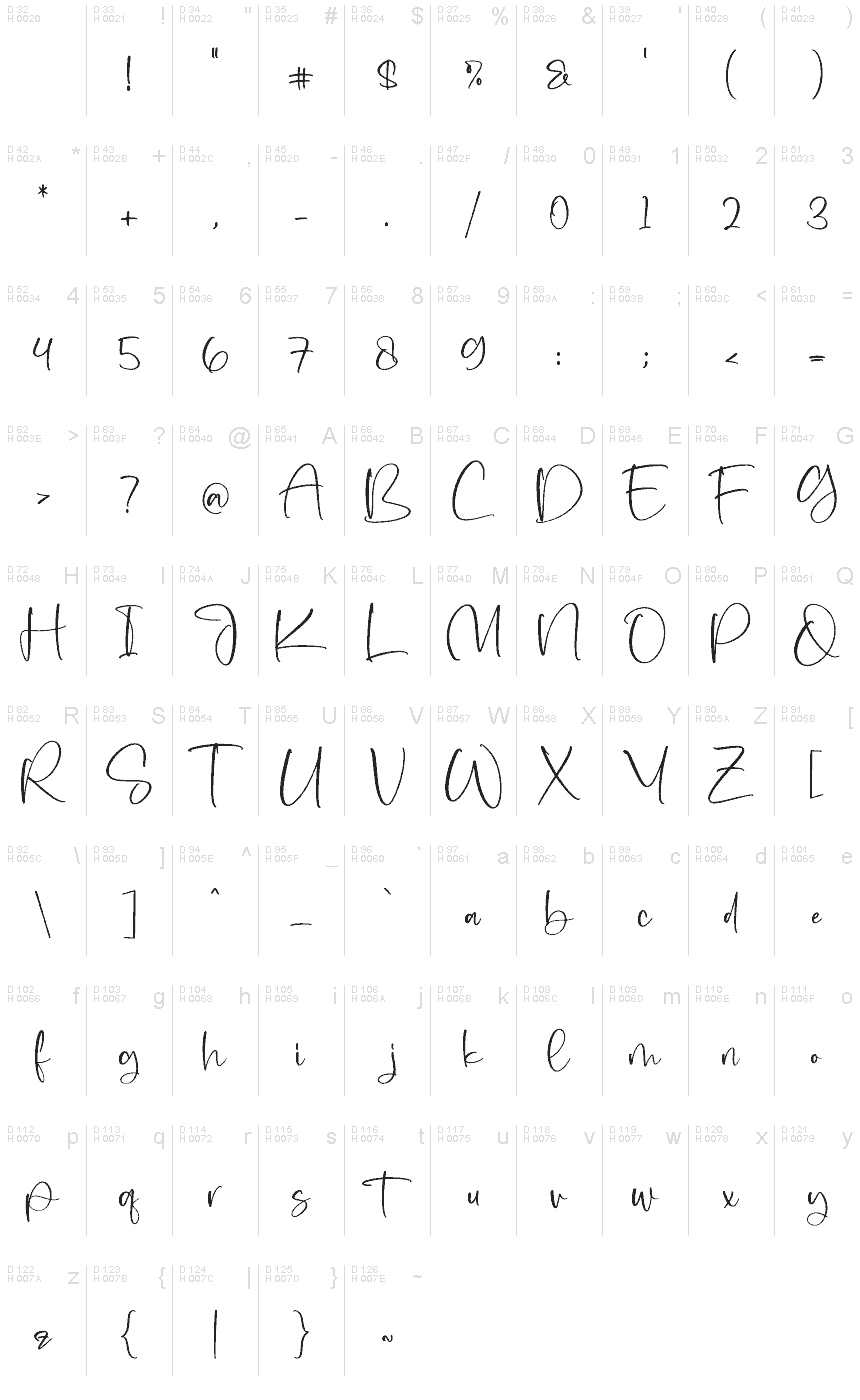
Ralontta
Ralontta is a beautiful, elegant, and calligraphic handwritten font designed by Perspectype Studio.
This font has an exquisite flow with its long tail loops and bold curves, and an interesting mixture of both cursive and non-cursive features.
Use it in wedding invitations for a romantic touch, in greeting cards and quotes for a playful design, in branding for fashion businesses and products, and for social media designs in advertisements and flyers.